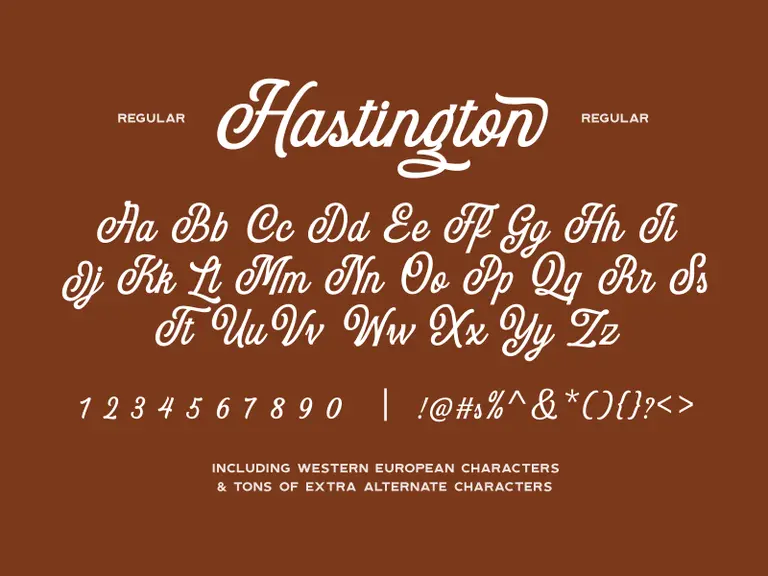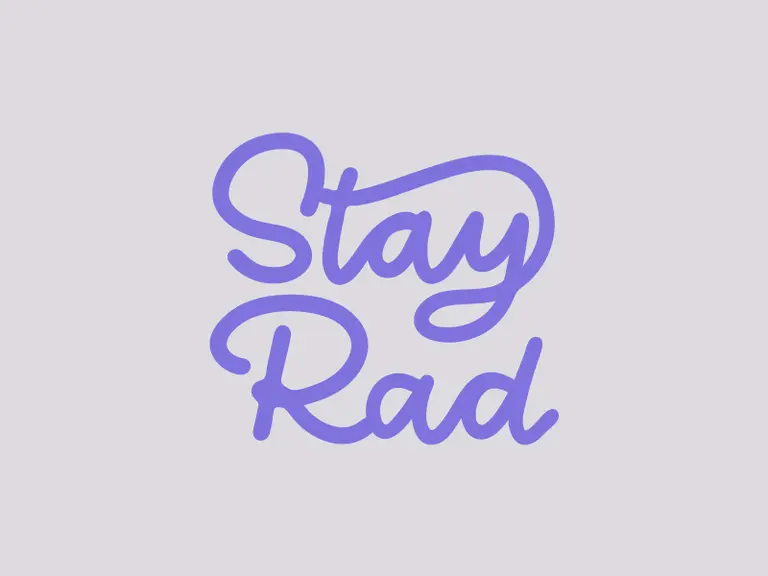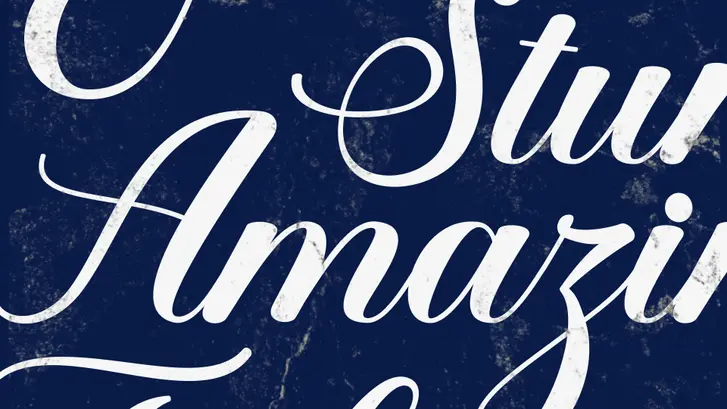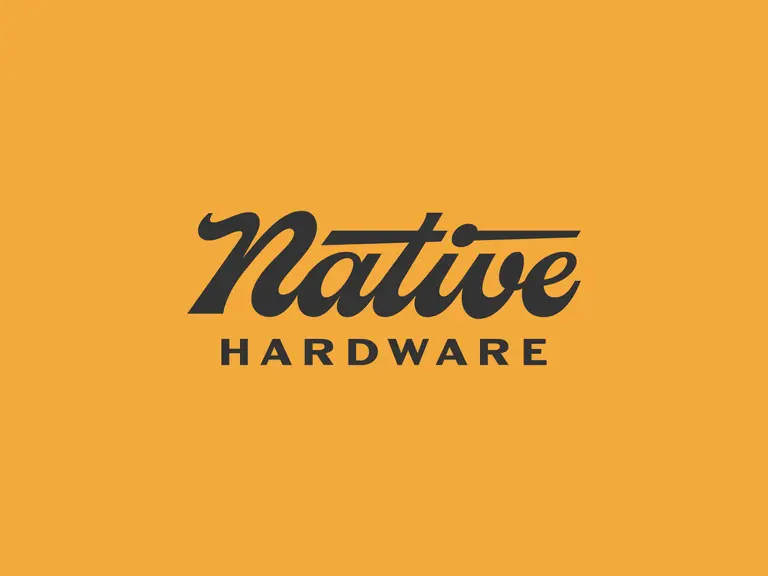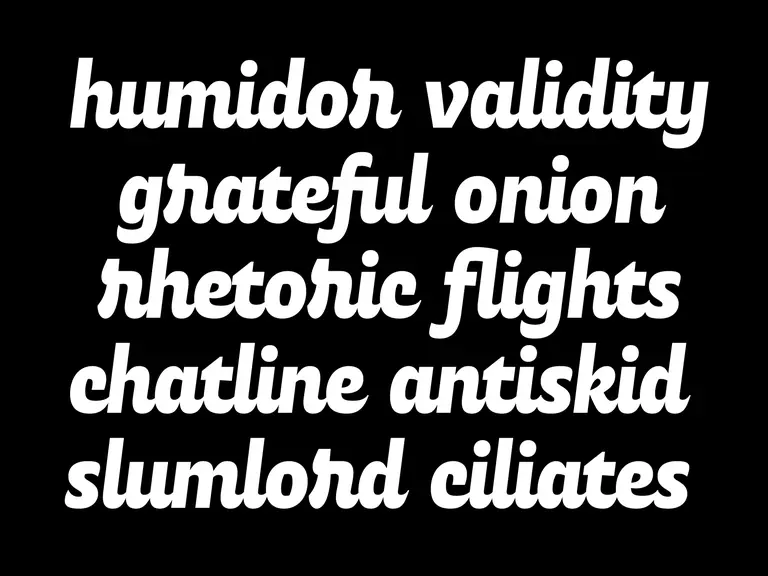
Get creative with cursive font
Does anyone else remember learning to write in cursive growing up and thinking "I will never use this again."
Yeah, us too.
Well, it turns out we might have judged this form of writing too quickly. With the popularity of hand lettering and typography on the rise, cursive writing has become popular as well.
And we’re here to reclaim this classic font style and make cursive forms cool again.
We’ve been known to be defenders of bad fonts, but hear us out here. Cursive can be cool and edgy when you use it the right way!
And we’re here to help you do just that. In this article, we’ll talk about the history of cursive fonts, how to use them, and how to customize and save fonts to use in your Vectornator designs.
First, let’s get back to the basics and talk about what a cursive font is.
What is a cursive font?
So, yeah, you probably know what cursive writing is, but let’s really examine this penmanship style.
Before discussing how to use cursive letter forms, we want to get into the nitty-gritty of what sets cursive writing apart from other writing styles.
Cursive writing was created to be a smoother, faster way to write. Your hand flows easily on the page when writing cursive because you don’t have to lift your hand between each letter.
Beautiful brush-script fonts evolved from necessity. For example, if you have a pen that frequently leaks ink, it’s more practical to write in cursive because you barely need to lift your pen from the page. Fountain pens have largely been replaced by contemporary writing utensils today, however cursive hand-lettering typefaces remain popular.
Cursive fonts are decorative fonts written in an upward, downward, and/or slant motion. Throughout an entire typeface, readers will find no spacing between letters, and each letter connects to the next.
Personal Brand | Stay Rad
Cursive calligraphy fonts have historically been used for event invitations, menus, and other decorative documents.
They can be printed out or drawn onto paper to create beautiful artwork. The letterforms of this type of font appear more natural than other types because they mimic handwriting.
Some people find these letters easier to read for that reason. Many educators teach cursive writing to students so that each generation can learn how to write in cursive correctly.
However, cursive writing isn’t something that everyone is taught to read, so it's often considered a more complex font to digest compared a regular sans-serif script.
Many such elegant fonts are available, ranging from casual handwriting fonts to block printing style, italicized script, calligraphy, brushstroke, and even stencils.
You might think cursive fonts and script fonts are the same thing. While they are super similar, there are some slight distinctions we should make before we move forward.
What is a script font?
Script fonts are created with fluid strokes similar to a handwritten stroke. This can be casual or formal. Formal scripts are what you often see in invitations, digital signatures, and official documents like diplomas and certificates
Script Typeface Experiment
Modern cursive font is more of a brush lettering style, and the smaller letters might not always be attached.
Cursive is one of the oldest forms of writing—let’s talk about the history behind it and when it was first used.
History of cursive fonts
The term cursive is derived from the French word “cursif” and a Medieval Latin term “cursivus,” which translates to “running.”
The first popularized form of cursive was developed during the Renaissance period.
Early forms of cursive were used in ancient times by the Egyptians, Romans, and Greeks. However, the first popularized form of cursive script is credited to 15th-century Italian Niccolo Niccoli.
During this time, there were no typewriters, printing presses, or computers, and all documents were handwritten in a calligraphy style cursive script. This includes books, letters, and any other written form of information.